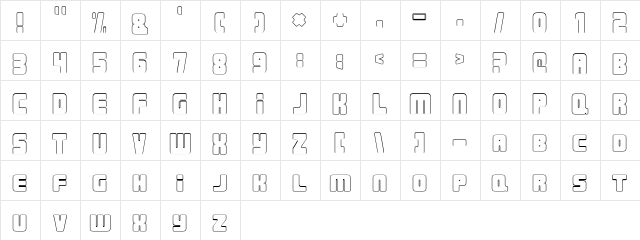
Urban Constructed Outline
Design Context for Urban Constructed Typeface
Urban Constructed brings ornamental detail and strong personality to headlines and identities, where visual impact matters more than quiet functionality.
Font Pairing: Pair with a clean neutral sans-serif for body copy to let Urban Constructed's character lead without overwhelming the composition.
Pro Tip: Treat Urban Constructed as the centrepiece of your typographic hierarchy. One strong heading set in a decorative face can carry an entire layout.